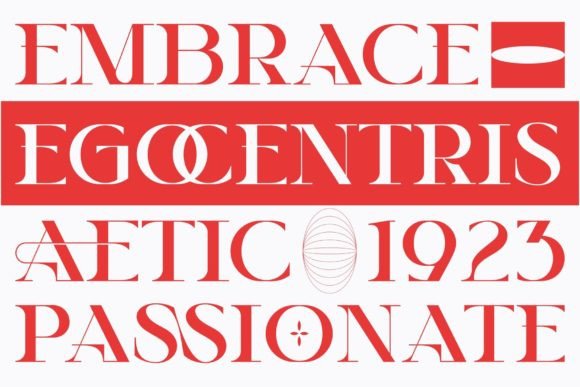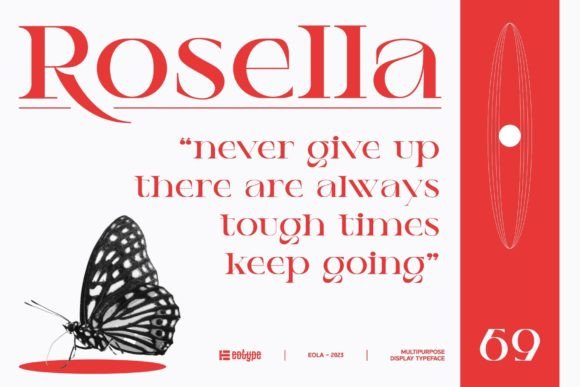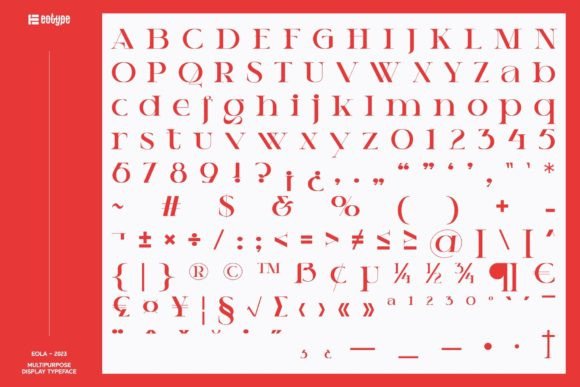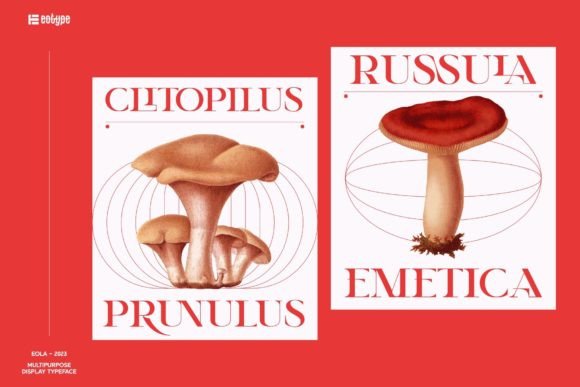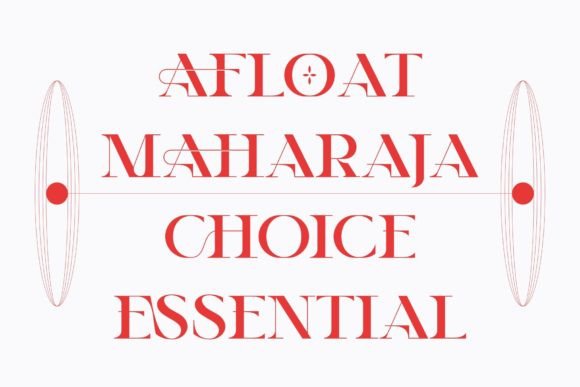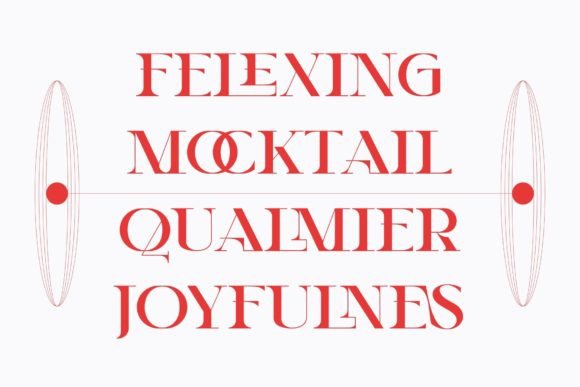
Introduction to Eola Font
Have you ever been stuck on a creative project, staring blankly at a blank canvas, waiting for the perfect font to bring your vision to life? This is a moment many designers know all too well. It’s the moment when the perfect design resource can make all the difference between a mediocre project and a masterpiece.
That’s where the Eola Font comes in – a stylish serif font that seamlessly blends modern and classic design elements, perfect for adding a touch of sophistication to any creative project. With its unique contrast between thick and thin lines, Eola Font is a high-quality addition to any designer’s toolkit.
Eola Font
- Available in 3 different font styles: regular, bold, and italic
- Supports a wide range of languages, making it a versatile design resource
- Resolution-independent design for crisp and clear display at various sizes
Honest Review: Eola Font
I recently had the chance to work with the Eola Font, and I’m excited to share my thoughts on this design resource.
- High-quality typography: The Eola Font boasts a clean and elegant design that’s perfect for creative projects.
- Transparent background: This feature is a game-changer for designers who want to achieve a seamless look in their designs.
- Wide range of applications: The font can be used for a variety of projects, from branding to editorial design.
- Limited character set: The Eola Font only includes a limited character set, which may not be suitable for projects that require a wide range of characters.
- No bold or italic versions: While the font is available in regular weight, there are no bold or italic versions available.
Overall, I was impressed with the Eola Font’s high-quality design and transparent background. While it has some limitations, it’s still a great option for designers who are looking for a free and stylish font for their creative projects.
Eola Font
The Eola Font is a high-quality design resource perfect for any creative project. With its unique and elegant style, it’s ideal for adding a touch of sophistication to your work. The font features a transparent background, making it easy to combine with other design elements.
The Eola Font is perfect for a variety of creative projects, including:
- Wedding invitations
- Branding materials
- Editorial designs
Tips for Getting the Most Out of Eola Font
To get the most out of the Eola Font, be sure to:
- Combine the font with other design elements for a unique look
- Use the font in conjunction with other design resources for a cohesive look
Compared to Eola Font: Alex Brush has a more playful and expressive feel, making it ideal for projects that require a touch of whimsy.
Aleo
Aleo is a modern, sans-serif font that can add a clean and minimalist touch to your design. It’s perfect for designers who want to create a high-quality, professional design resource.
Q: Does the Eola Font have a transparent background?
Yes, the Eola Font has a transparent background, making it ideal for use on images with complex backgrounds. This feature allows the font to blend seamlessly with the surrounding design, creating a more visually appealing and professional look.